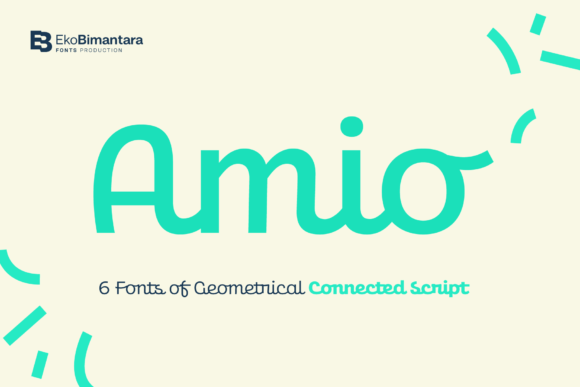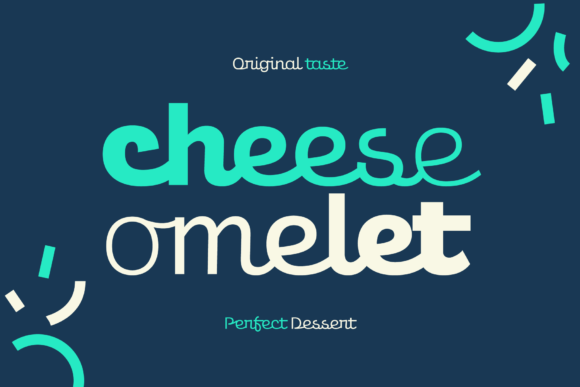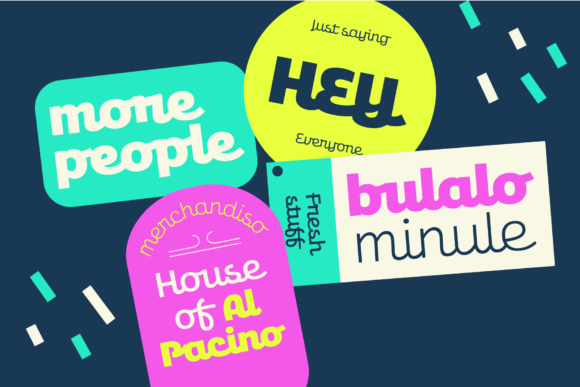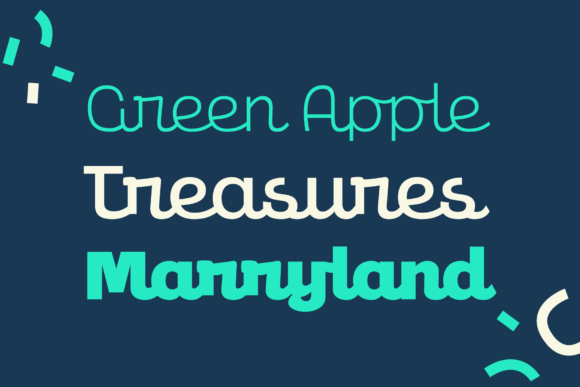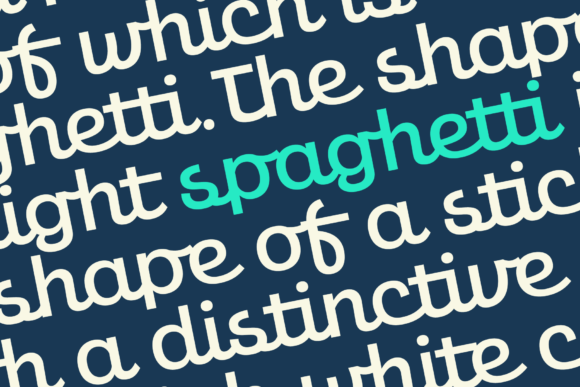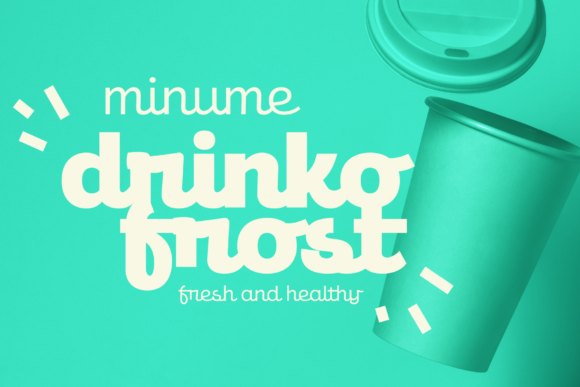
Amio Font
About Amio Font
Amio is a fun and versatile script font family that adds a touch of playfulness and geometric flair to your projects. With its balanced and varied letterforms, Amio is designed to enhance the beauty of your designs without being too thin or too thick.
The geometric nature of Amio gives it a modern and contemporary feel, making it suitable for a wide range of design applications. Whether you’re working on branding projects, logo designs, packaging, posters, or any other creative endeavor, Amio brings a unique and eye-catching element to your work.
The letterforms of Amio are carefully crafted to maintain a sense of balance and harmony. Each character has its own distinct personality, combining sharp edges with smooth curves to create a visually appealing and cohesive typeface. The varying weights and widths within the font family provide versatility and allow for creative exploration.
Amio’s fun and playful nature make it perfect for adding a touch of whimsy to your designs. Whether you’re creating greeting cards, invitations, or social media graphics, Amio’s unique style will help your projects stand out and capture attention. Its geometric elements also lend themselves well to creating decorative and ornamental designs.
With the Amio font family, you have the freedom to mix and match different weights and styles to create dynamic and engaging compositions. The variety of options available within the family allow for seamless integration across different design elements, ensuring a cohesive and visually appealing result.
Whether you’re looking to add a touch of fun to your branding, create eye-catching headlines, or simply inject some personality into your designs, Amio is a font family that offers versatility and creative possibilities. Embrace its fun, geometrical style and let it enhance the beauty of your projects with its balanced and varied letterforms.